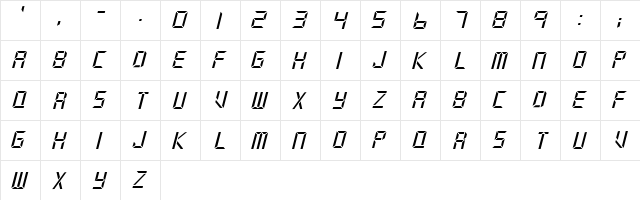
Doepfer Normal
Design Context for Doepfer Typeface
Doepfer takes a measured approach to typography — its balanced proportions and neutral character make it a reliable workhorse for both digital and print work.